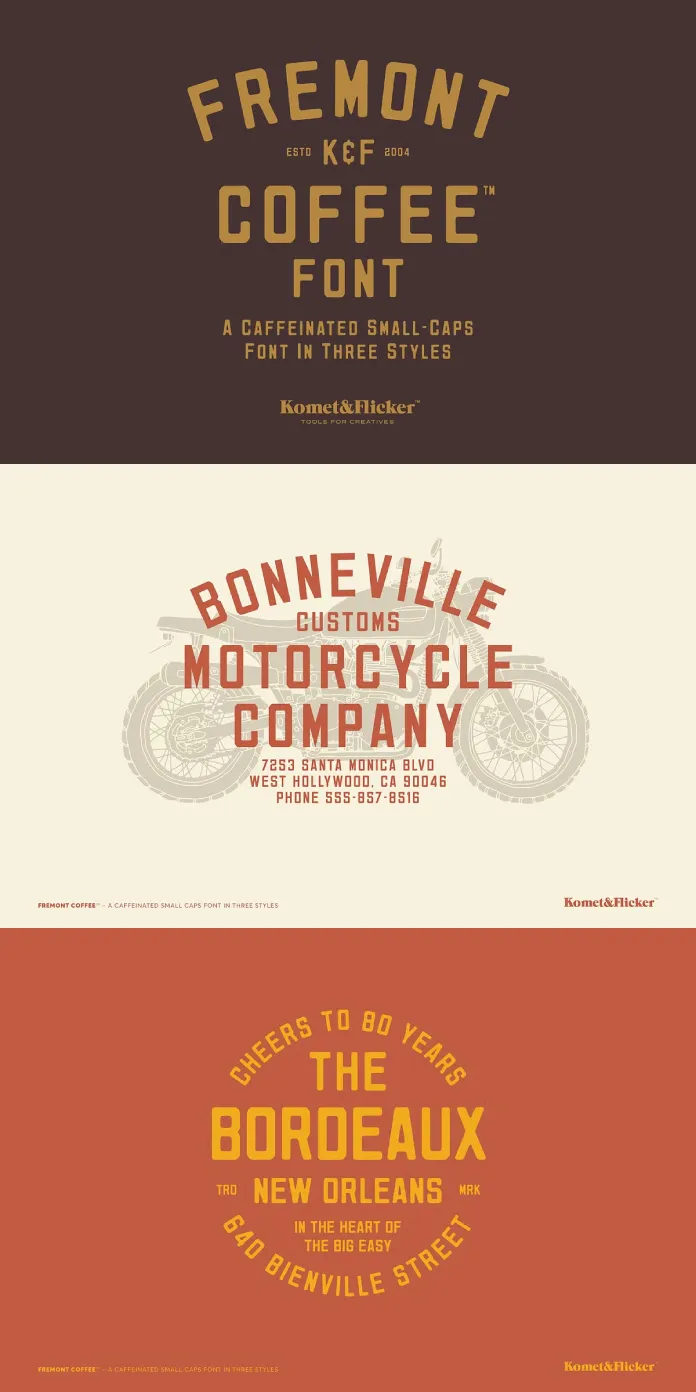
A Versatile Blend of Modern and Rustic Typography
The Fremont Coffee font by Komet & Flicker is a typographic gem for designers seeking to balance contemporary aesthetics with a handcrafted touch. Inspired by the chic menu boards often found in artisan coffee shops, this font offers a versatile solution for diverse design needs. Its three distinct styles—Soft, Clean, and Rough—each carry unique characteristics, making Fremont Coffee suitable for a wide range of creative projects, from branding to digital and print materials.
With its warm, artisanal appeal and modern sensibility, Fremont Coffee stands out as a font that caters to both the practical and stylistic needs of today’s designers. Each style tells a different story, offering flexibility for projects that demand a balance of sophistication and authenticity. Whether you’re designing for a rustic café, crafting a bold brand identity, or exploring textured, handcrafted typography, Fremont Coffee has the tools to bring your vision to life.
Rounded Charm: Fremont Coffee Soft
The Soft version of Fremont Coffee stands out with its rounded letterforms and warm, approachable feel. Its rustic and slightly worn appearance makes it ideal for casual and friendly designs. Whether used in hip café menus, cozy event invitations, or community flyers, this style exudes a sense of authenticity and charm.
Key Uses for Fremont Coffee Soft:
- Café menus and signage
- Informal branding projects
- Print materials for laid-back events
Contemporary Sophistication: Fremont Coffee Clean
For a sharper, more modern aesthetic, Fremont Coffee Clean delivers. This style eliminates any roughness, showcasing a crisp and refined typeface. It’s an excellent choice for designs that require a polished yet approachable look. Fremont Coffee Clean fits perfectly in branding, menu designs, and digital content where clarity and style are essential.
Key Uses for Fremont Coffee Clean:
- Minimalist branding projects
- Elegant menu designs
- Typography for digital and print media
Gritty Authenticity: Fremont Coffee Rough
The Rough version introduces a textured, handcrafted vibe. Its intentionally imperfect edges and rugged details create the illusion of weathered signage. This style includes two unique glyph versions, allowing designers to mix uppercase and lowercase letters for an organic and dynamic look. Fremont Coffee Rough is perfect for projects that call for a touch of character and grit.
Key Uses for Fremont Coffee Rough:
- Vintage-inspired designs
- Artistic posters and flyers
- Projects requiring a hand-crafted aesthetic
Features and Language Support
Fremont Coffee’s functionality extends beyond its three distinct styles. The font includes a complete A-Z uppercase Basic Latin character set, select European-specific characters, numbers, punctuation, and a range of symbols. This comprehensive character support ensures usability for global projects while maintaining its signature aesthetic.
Key Features:
- Three unique styles: Soft, Clean, and Rough
- Full Basic Latin character set
- European language support
- Numbers, punctuation, and symbols
Why Choose Fremont Coffee?
Fremont Coffee blends the best of modern and rustic typography. It captures the inviting spirit of artisanal design while offering flexibility for professional applications. Whether crafting a cozy café atmosphere or building a bold brand identity, this font provides the tools to make your designs stand out.
Fremont Coffee by Komet & Flicker is more than just a typeface; it’s a creative toolkit for designers. Its three distinct styles—soft, Clean, and Rough—empower creators to infuse personality and authenticity into their projects. With its comprehensive features and versatile aesthetic, Fremont Coffee ensures that every design it touches feels carefully brewed to perfection.
Make your designs unforgettable with the Fremont Coffee font—where artisanal charm meets modern versatility.